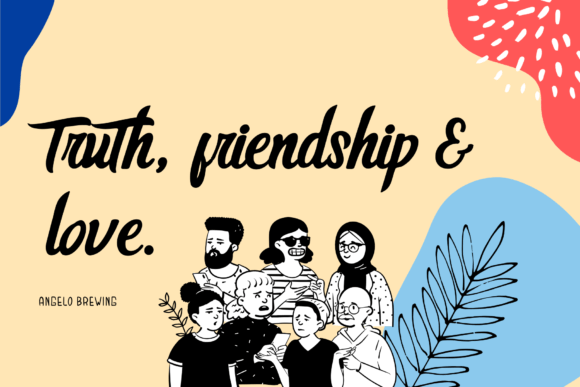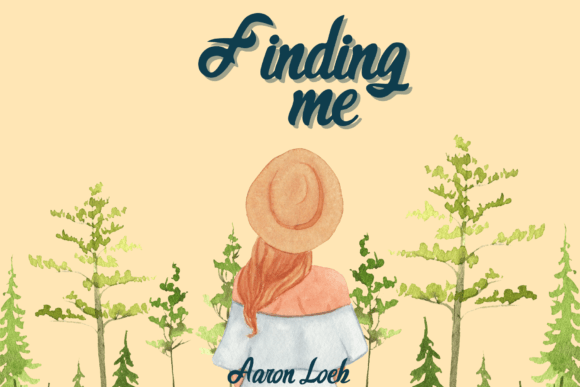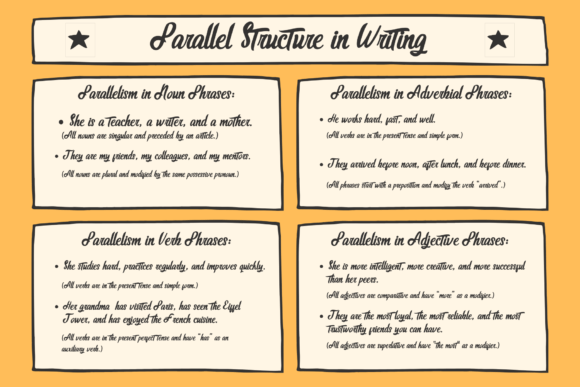
Introduction to Jayakarta Font
Have you ever been working on a creative project, pouring your heart and soul into every detail, only to feel like something’s missing? That’s when I discovered Jayakarta Font, and it completely changed the game for me. This vibrant and playful script font has a way of adding a touch of whimsy to even the most mundane designs.
As a designer, I can attest to the value of having high-quality design resources like Jayakarta Font at your fingertips. With its flowing lines and dynamic strokes, this font is perfect for crafting greeting cards, invitations, posters, or branding materials that truly stand out. Plus, with a transparent background, you can easily customize it to fit your design needs.
Key Features of Jayakarta Font
- High-quality font design suitable for creative projects, including posters, flyers, and brochures.
- Unique, elegant script font with a transparent background, ideal for adding a touch of sophistication to your design.
- Designed to be versatile and suitable for a wide range of creative projects, from formal to informal designs.
- Great design resource for designers, artists, and writers looking for a high-quality, unique font to enhance their work.
Honest Review: Jayakarta Font
I recently had the chance to work with the Jayakarta Font, and I’m excited to share my thoughts on this design resource. Overall, I found it to be a great addition to my creative project, but like any tool, it has its strengths and weaknesses.
- ✨ High-quality typography: The Jayakarta Font offers crisp and clear lettering, perfect for any design project.
- ✨ Transparent background: This feature allows for seamless integration into any design, making it a great choice for creatives.
Any limitations:
- ⚠️ Limited style options: While the Jayakarta Font is well-designed, it may not offer the same level of customization as other fonts on the market.
- ⚠️ May not be suitable for complex designs: Due to its simple design, this font may not be the best choice for intricate or multi-layered projects.
Overall, I’m impressed with the Jayakarta Font. Its high-quality typography and free download make it a great resource for designers. However, its limitations should be considered when choosing the right font for a project.
Getting the Most Out of Jayakarta Font
For optimal results, use the Jayakarta Font in conjunction with a high-contrast background to make your design stand out. Experiment with different font sizes and styles to find the perfect balance for your creative project.
The Jayakarta Font is ideal for designing logos, business cards, and other branding materials. Its unique design makes it perfect for creative projects that require a touch of elegance and sophistication.
Q: Is the Jayakarta Font suitable for a creative project?
Yes, the Jayakarta Font is a great resource for creative projects. Its unique design and high-quality typography make it an excellent choice for designers looking to add a touch of elegance and sophistication to their work.